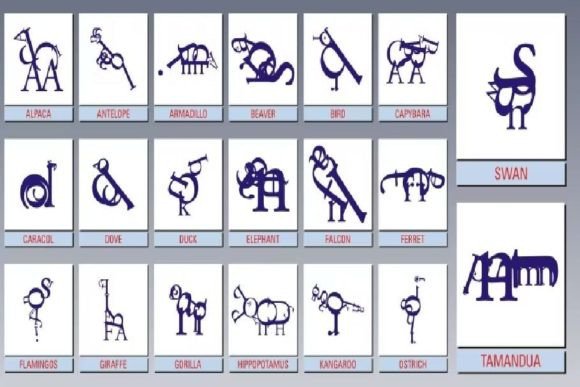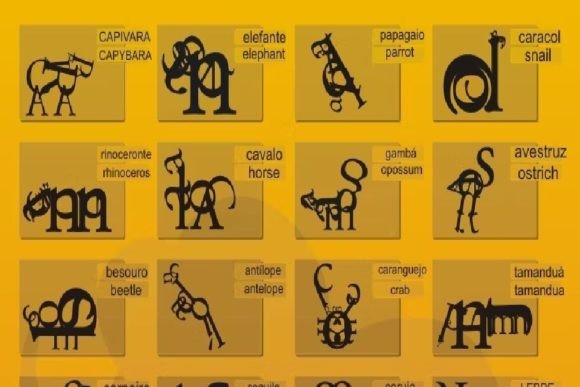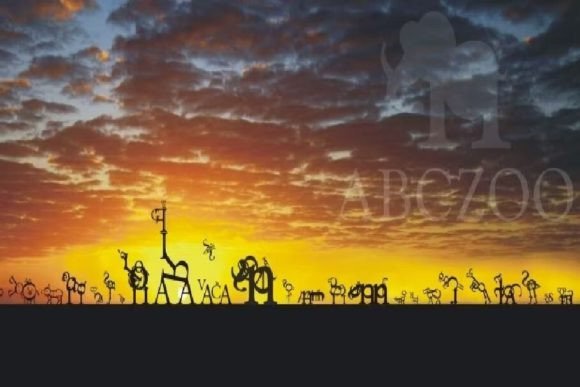
Introducing ABC Zoo Font: A Whimsical Typeface for Designers and Crafters
Are you a designer or crafter looking for a unique and playful font to add some personality to your projects? Look no further than the ABC Zoo Font, a delightful collection of two typefaces that combine alphabet letters to create adorable animal designs. In this article, we’ll dive into the world of ABC Zoo Font, exploring its features, benefits, and uses, as well as provide tips and inspiration for incorporating this charming font into your work.
What is ABC Zoo Font?
ABC Zoo Font is a collection of two typefaces, carefully crafted to bring the alphabet to life in a fun and imaginative way. The fonts feature uppercase letters that are cleverly combined to create the design of an animal, using the letters in the name of each animal. For example, the letter combination “GIRAFFE” becomes a stylized giraffe illustration, while “TIGER” transforms into a bold and fierce tiger design.
Key Features of ABC Zoo Font
• Two font styles: The ABC Zoo Font family includes two distinct font styles, allowing you to choose the one that best suits your project’s tone and personality.
• Uppercase letters: The fonts feature uppercase letters, carefully designed to create the animal illustrations.
• Animal designs: Each letter combination creates a unique and recognizable animal design, making it perfect for projects that require a playful touch.
• Scalable: The fonts are designed to be scalable, ensuring they remain clear and legible in various sizes and applications.
Benefits of Using ABC Zoo Font
So, why should designers and crafters choose ABC Zoo Font for their projects? Here are just a few benefits:
• Add a playful touch: The ABC Zoo Font is perfect for adding a whimsical and playful element to your designs, making it ideal for projects aimed at children or families.
• Unique and recognizable: The animal designs created by the font are instantly recognizable, making it a great choice for branding, logos, or headlines.
• Versatile: The ABC Zoo Font can be used in a wide range of applications, from digital designs to print materials, such as stickers, posters, and crafts.
Using ABC Zoo Font in Your Designs
Now that we’ve explored the features and benefits of ABC Zoo Font, let’s discuss some creative ways to incorporate it into your designs:
• Children’s projects: The ABC Zoo Font is perfect for children’s books, educational materials, and kids’ party decorations.
• Branding and logos: Use the font to create a memorable and playful logo for your business or product.
• Posters and prints: Add a touch of whimsy to your posters, flyers, and prints with the ABC Zoo Font.
• Crafts and DIY: The font is ideal for crafters, who can use it to create personalized cards, gift tags, and other handmade items.
To get the most out of ABC Zoo Font, here are some tips and inspiration to keep in mind:
• Experiment with colors: The font looks great in bold, bright colors, so don’t be afraid to get creative with your color palette.
• Mix and match: Combine the ABC Zoo Font with other fonts and design elements to create a unique and eye-catching look.
• Use in combination with images: Pair the font with illustrations or photographs to add an extra layer of visual interest to your designs.
In conclusion, the ABC Zoo Font is a delightful and versatile typeface that’s perfect for designers and crafters looking to add a playful touch to their projects. With its unique animal designs, scalability, and ease of use, this font is sure to inspire creativity and bring a smile to your audience’s faces. So why not give it a try and see the wild side of typography?